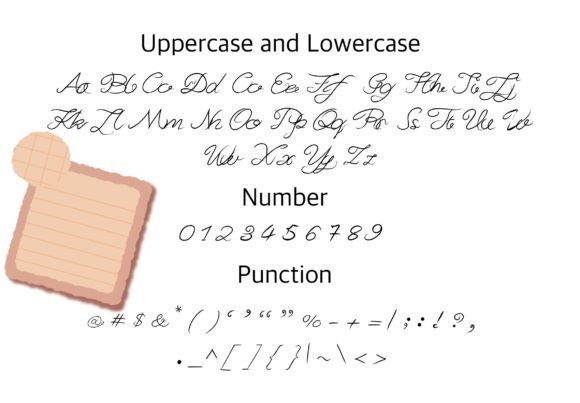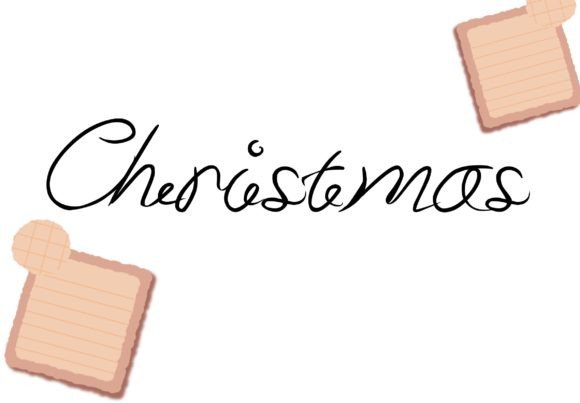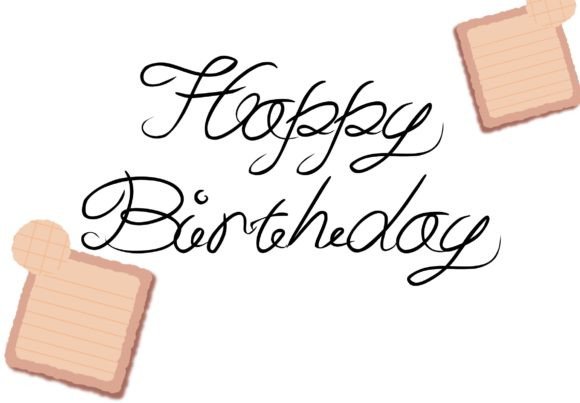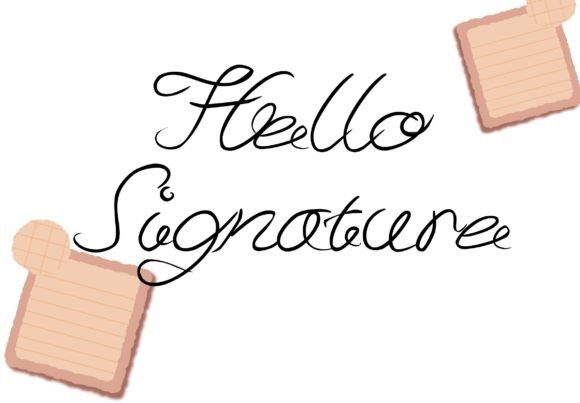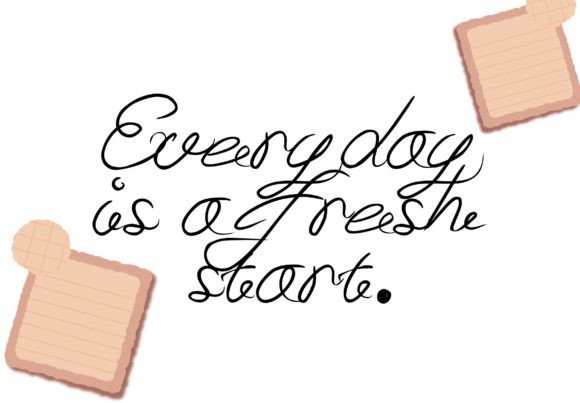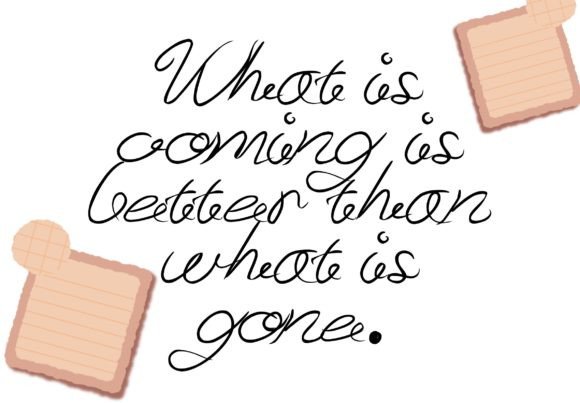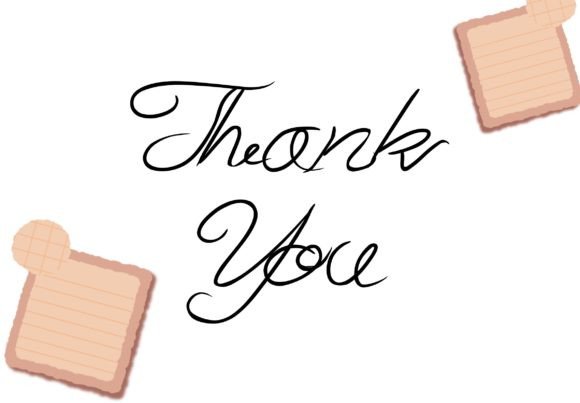
Post It Font
**Post It: A Lovely and Playful Handwritten Font for Festive Creativity**
Post It is a font that radiates love and playfulness, making it the perfect choice for a wide array of festive design projects. Whether you’re creating Christmas cards, holiday projects, wall displays, social media posts, logos, T-shirts, posters, product packaging, product designs, wedding invitations, labels, photography, stationery, or any other creative endeavor, Post It adds a touch of charm and festivity to your work.
The charm of Post It lies in its lovely and playful handwritten characters, meticulously crafted to exude warmth and authenticity. Each letter embodies the spirit of celebration and creativity, making it an ideal choice for spreading festive cheer.
This font’s versatility ensures it can adapt to various design contexts. It can be used to create memorable Christmas cards that convey your holiday wishes, infuse a sense of joy into product packaging, or add a playful touch to your social media posts. Its lovely and playful appearance ensures your designs are inviting and visually appealing.
In summary, Post It is more than just a font; it’s a source of festivity and creativity that enhances your design projects. Its handwritten letters make it the perfect choice for infusing warmth and charm into your work during the holiday season and beyond. With Post It, your creative projects will shine with a festive and playful touch. Choose Post It, and let your designs captivate with its lovely and playful charm.